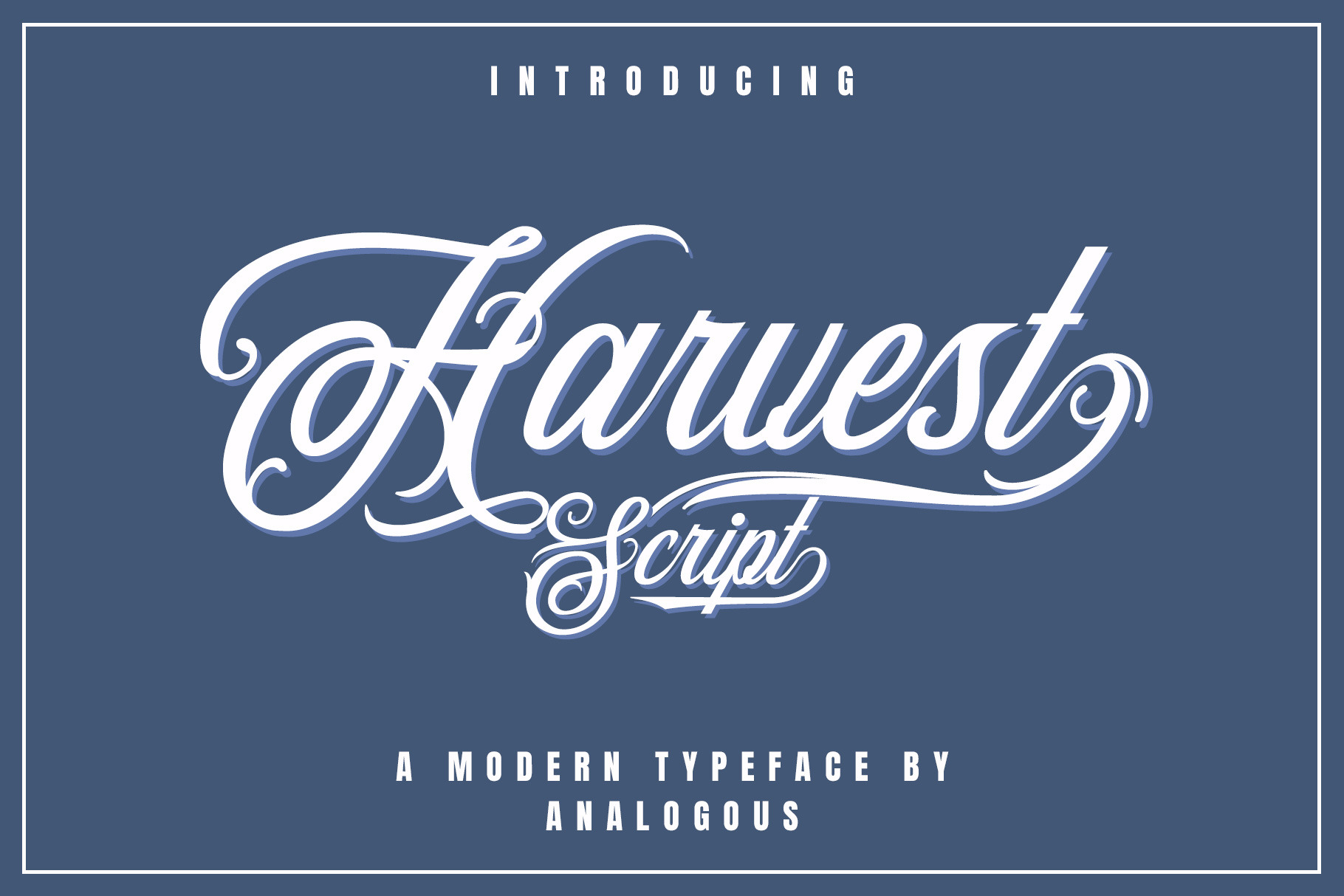
Harvest Script | Modern Typeface
Introducing the new modern typeface font, Harvest Script!
Harvest Script is perfect for red wine label, vodka label, upscale packaging, wedding stationery, invitations, business cards, branding and other projects that require a touch of handwriting and luxury. In general, it creates a luxurious and elegant look in design.
Harvest Script comes with beautiful uppercase and lowercase alternates, ligatures and loved by many end-swashes. It has Multilingual support (Western European characters) Opentype Stylistic Alternates works on the principle of simple combinations with activated Standard Ligatures option in Opentype panel (Adobe Photoshop, Adobe Illustrator).